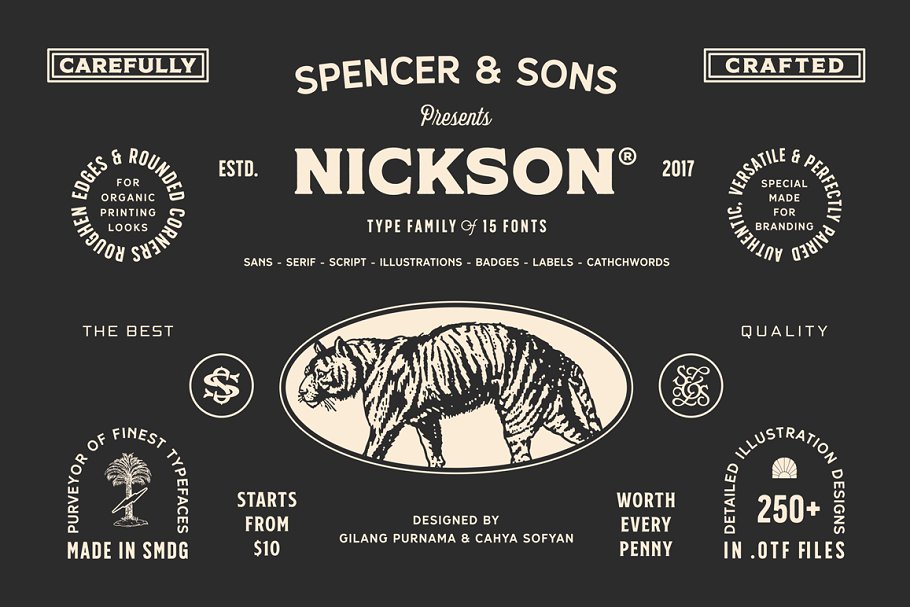
Looking for the perfect font to create eye-catching designs for your posters, logos, t-shirts, and magazines? Look no further than the S&S Nickson Font Bundle, created by the experts at Spencer & Sons Co.
This font family includes 15 unique fonts, each with its own distinct style that perfectly pairs with the others. From seven display fonts to one script font, you'll have a wide range of options to choose from. Plus, with over 250 illustrations and badges, labels, and catchwords included, you'll have everything you need to create stunning typographic works.
But what sets the S&S Nickson Font Bundle apart is its attention to detail. Using new techniques, every detail of these fonts and illustrations is preserved, ensuring that your designs will be truly elegant and eye-catching.
Not only are these fonts perfect for creating posters and other printed materials, but they also support 75+ Latin based languages, making them a versatile choice for all your design needs. And with the included OTF file, you can be sure that these fonts will work seamlessly on any platform.